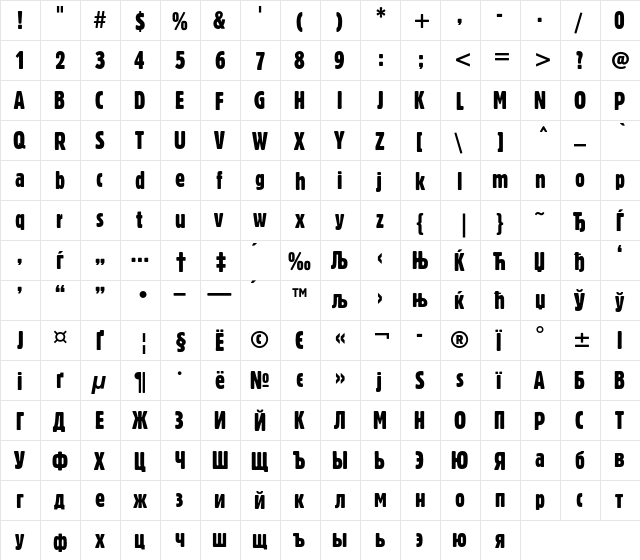
BlocExtCondC Regular Font Preview
BlocExtCondC Regular
Design Context for BlocExtCondC Typeface
BlocExtCondC takes a measured approach to typography — its balanced proportions and neutral character make it a reliable workhorse for both digital and print work. Its narrow stance lets it pack a punch even in space-constrained designs.